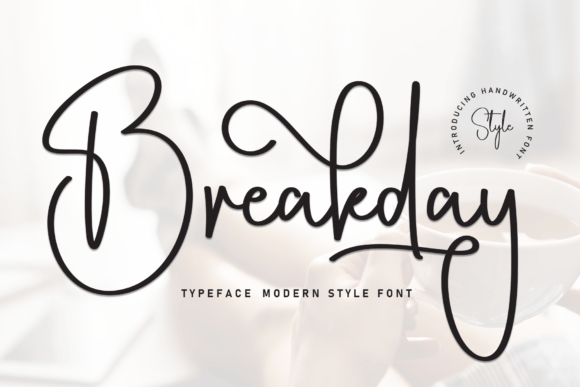
Dive into the world of Breakday Font, a mesmerizing creation by andikastudio that captivates with its timeless beauty and enchanting handwritten charm. Step into a realm where letters dance with grace, each stroke infused with elegance and artistry. Breakday Font is the ultimate choice for those seeking to craft eye-catching logos, branding, and quotes that leave an indelible impression.
Unleash your creativity and embark on a journey of self-expression with Breakday Font. Its unique and beautiful touch breathes life into your designs, transforming them into captivating masterpieces. Every letter is a work of art, carefully crafted to evoke a sense of wonder and admiration.
With Breakday Font, you hold the key to unlocking endless possibilities. Whether you're a seasoned designer or just starting your creative journey, this font is your perfect companion. Its versatility knows no bounds, effortlessly adapting to a myriad of projects, from personal invitations and greeting cards to professional presentations and marketing campaigns.
Immerse yourself in the captivating allure of Breakday Font and let your imagination run wild. Its timeless appeal transcends trends, ensuring your designs remain relevant and captivating for years to come. Embrace the beauty of handwritten elegance and watch as your creations blossom into stunning works of art.
Seize the opportunity to elevate your designs to new heights with Breakday Font. Its enchanting aura captivates audiences, leaving them spellbound by your creations. Experience the joy of crafting designs that resonate with emotion and leave a lasting impact.